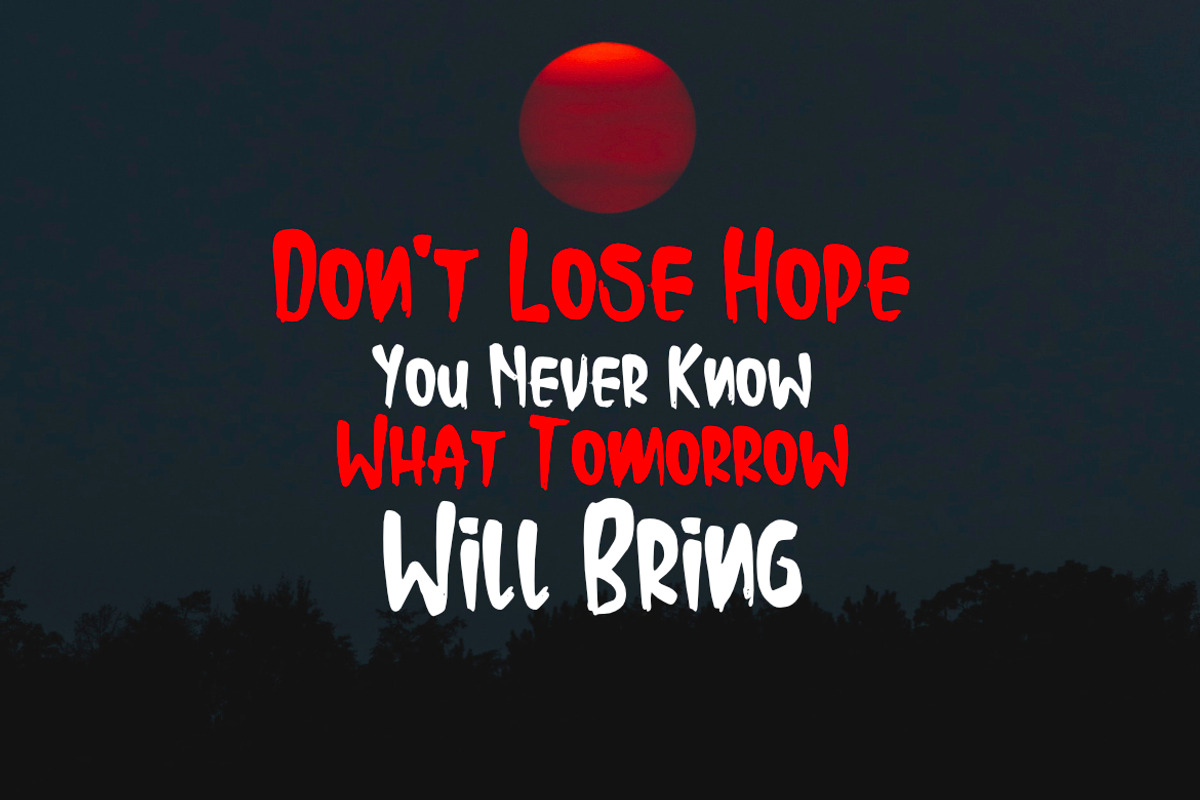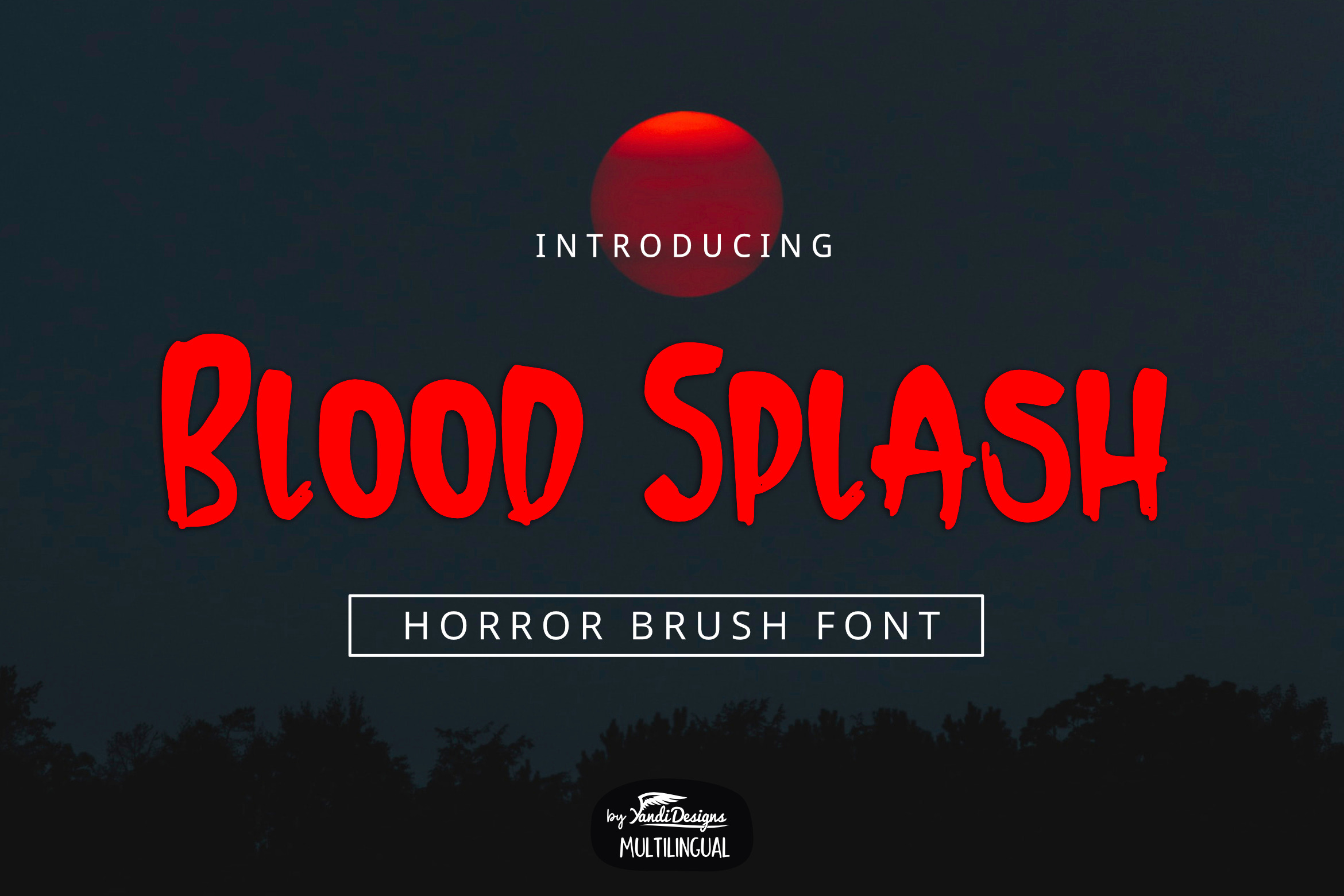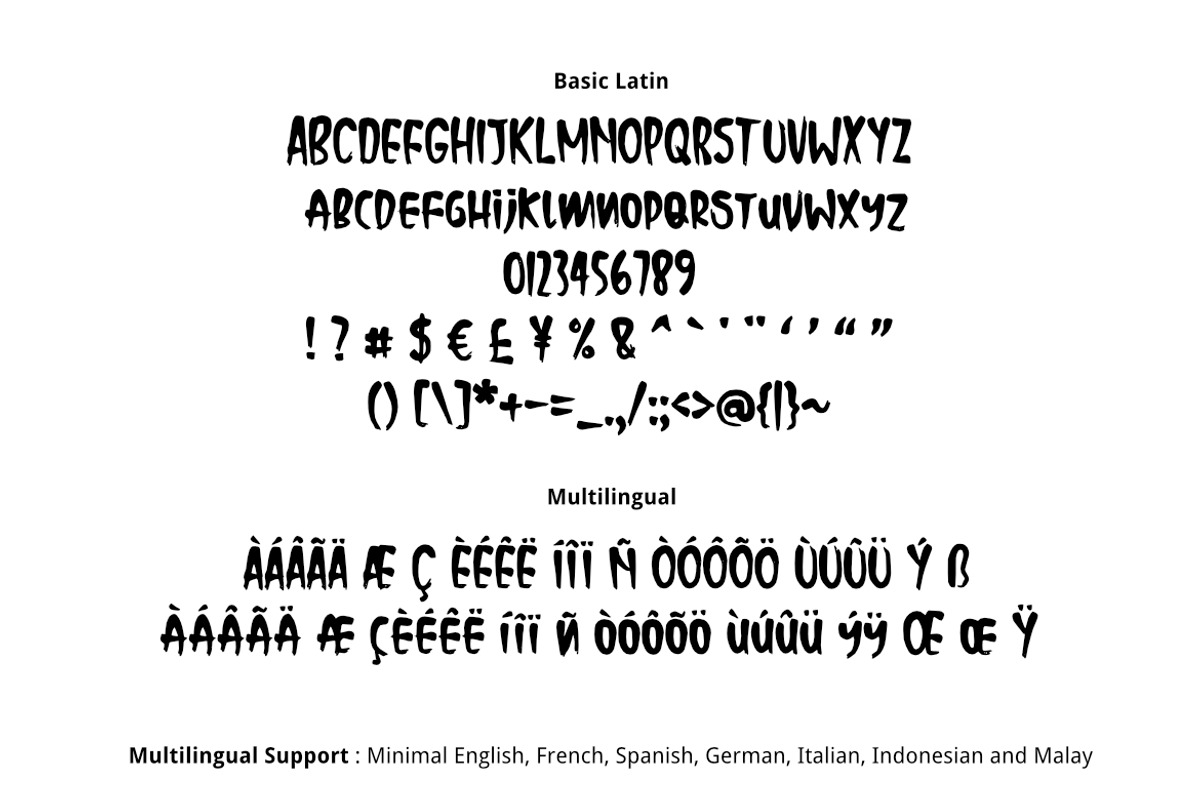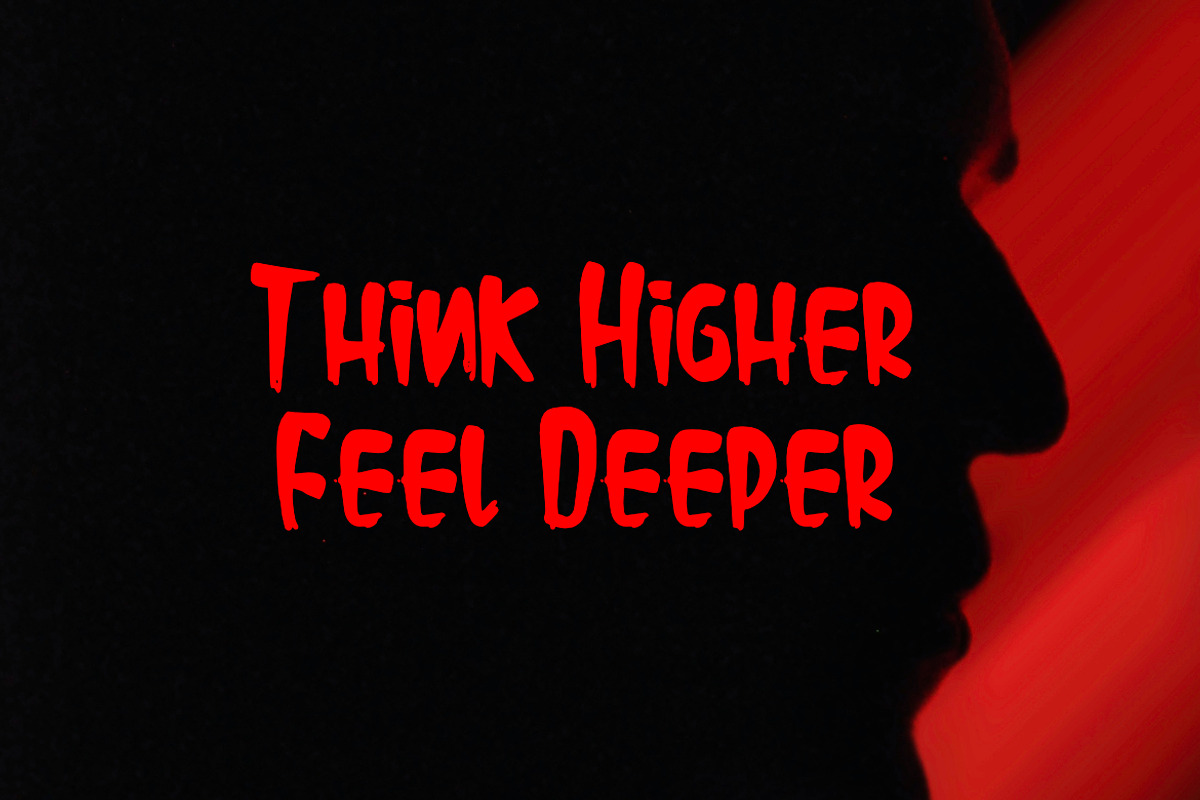
Blood Splash Font
Blood Splash is simple multipurpose handmade brush font, suitable for many project children book, quotes, logo , heading , title etc.
Basic Latin (Standard English character , number, symbol) Multilingual Support (minimal English, French, Spanish, German, Italian, Indonesian, Malay)